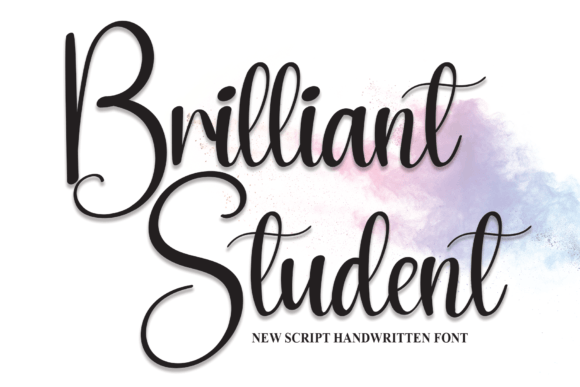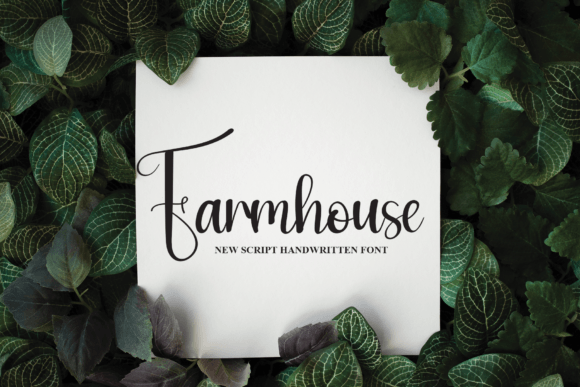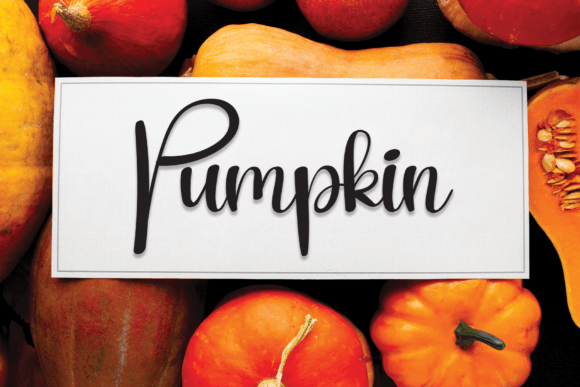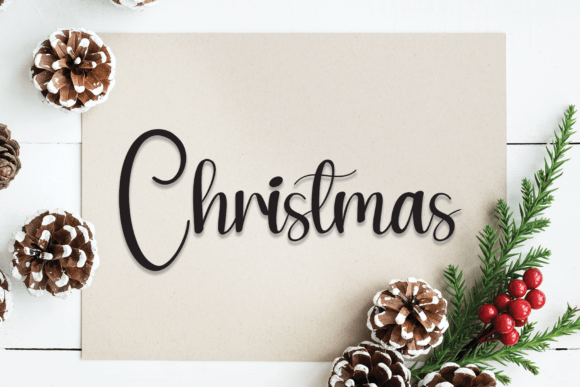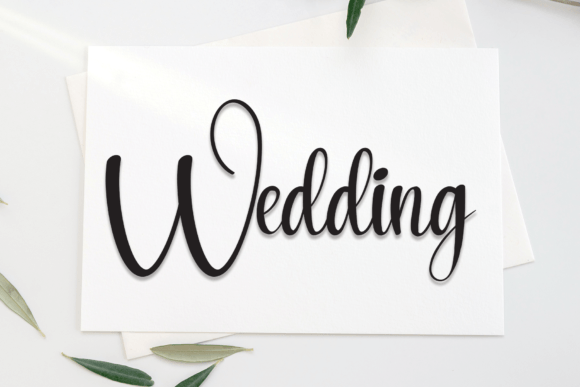
Brilliant Student Font
Bring a warm and approachable feel to your creative projects with the Brilliant Student font. This simple and friendly handwritten script is designed to be your go-to font for a variety of occasions. Whether you’re crafting, designing digitally, preparing presentations, or making greeting cards, Brilliant Student is a perfect choice.
The Brilliant Student font features clean and readable strokes that add charm and friendliness to any design. Its versatility allows it to adapt to different creative needs, making your projects feel more personal and inviting.
You can use the Brilliant Student font for various applications including crafts, digital artwork, presentations, and card designs. Its approachable style works well for projects that require a natural, handwritten touch. This font is ideal for anyone seeking a casual yet neat script font.
Despite its simple and friendly design, the Brilliant Student font maintains excellent readability. Whether used in large headings or smaller text, it ensures clarity and style.
Using the Brilliant Studentfont will give your projects a genuine and inviting character. If you want a handwritten font that’s easy to use and highly versatile, this font is an excellent addition to your toolkit.
In summary, the Brilliant Studentfont is a simple, friendly, and versatile handwritten script. Perfect for crafts, digital designs, presentations, and greeting cards, it brings warmth and personality. Download it today and make your projects more inviting with Brilliant Student.